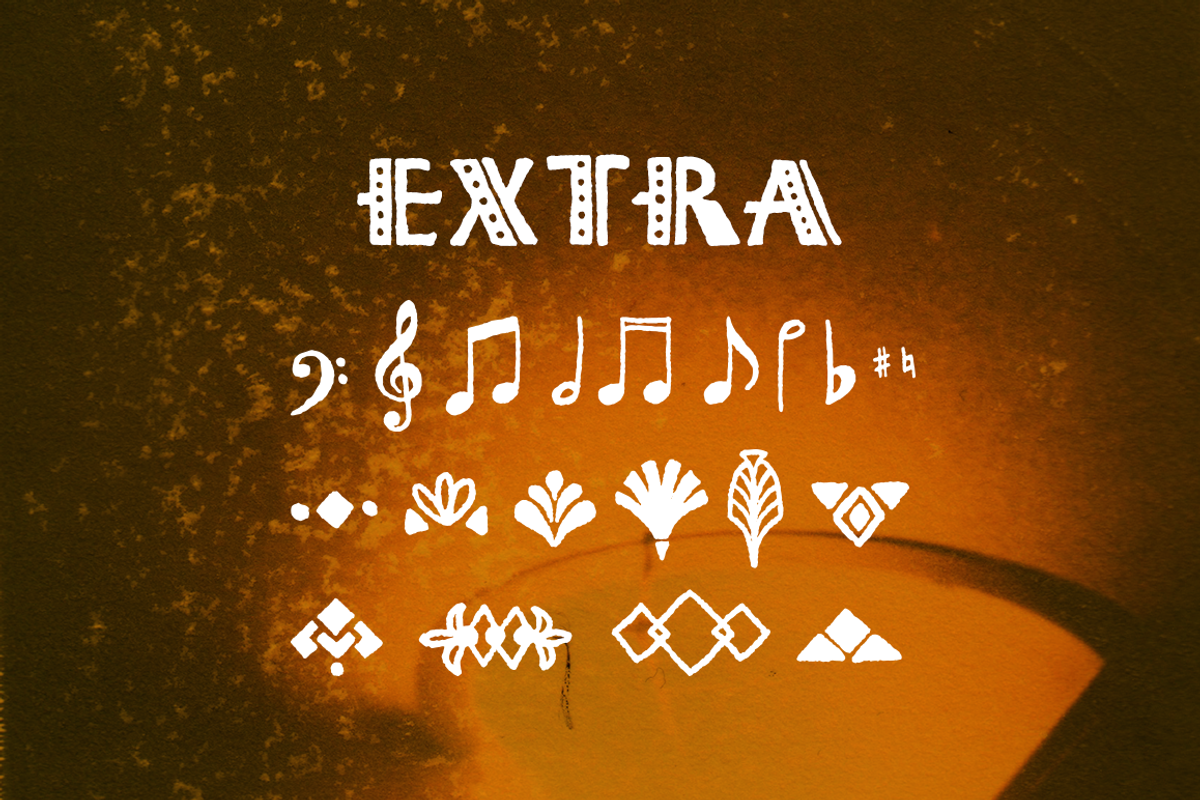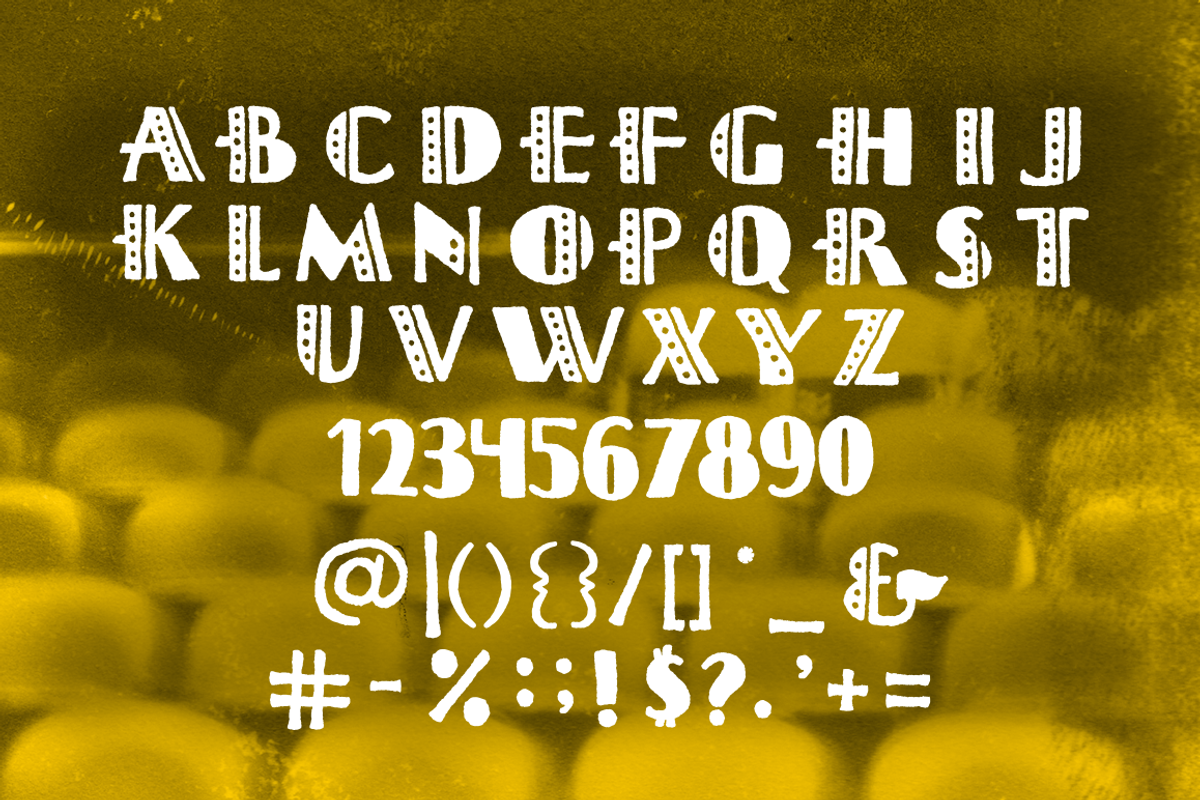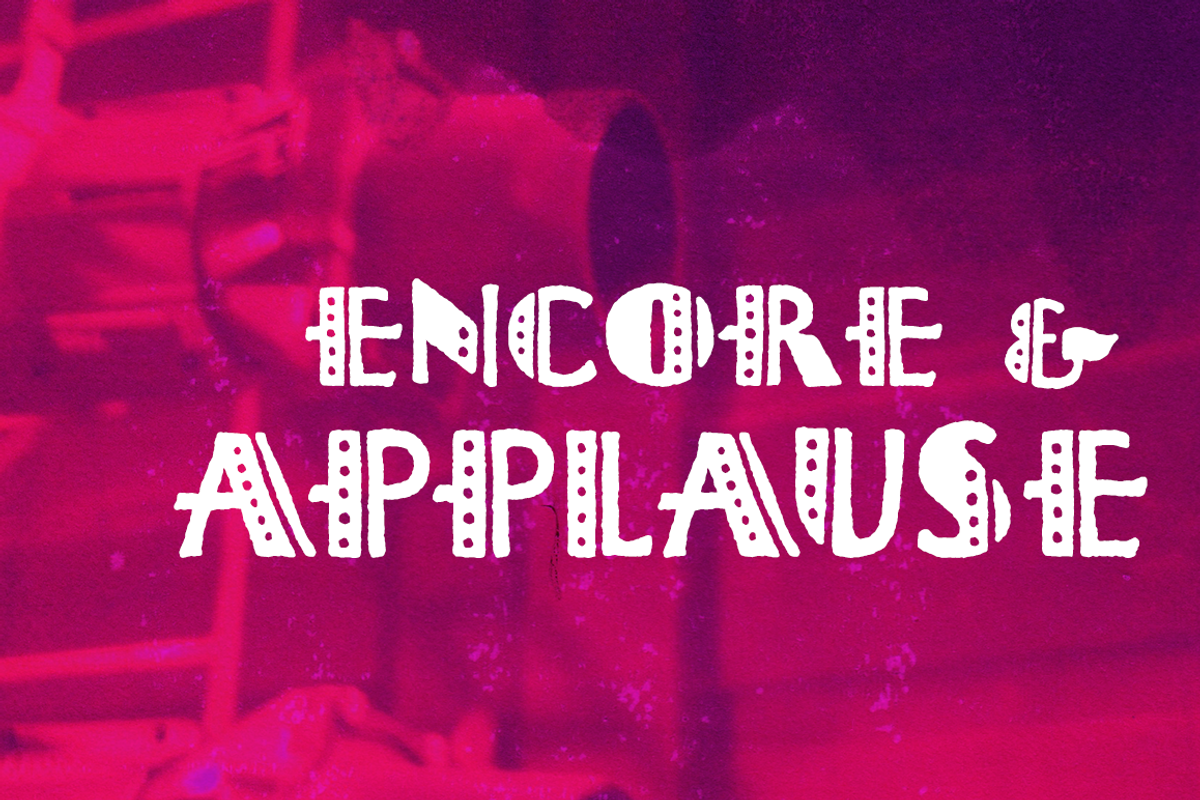
Octave Typeface
Octave Typeface by Hues of Hodges is a font selected for branding, posters, packaging, typography.
Why Octave Typeface is worth a look
Octave Typeface by Hues of Hodges fits naturally into Branding, posters, packaging, typography.